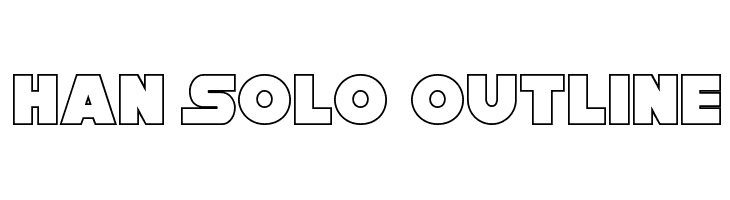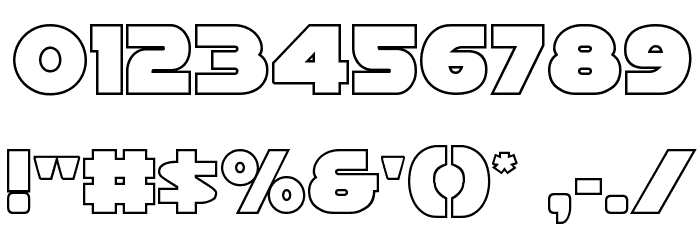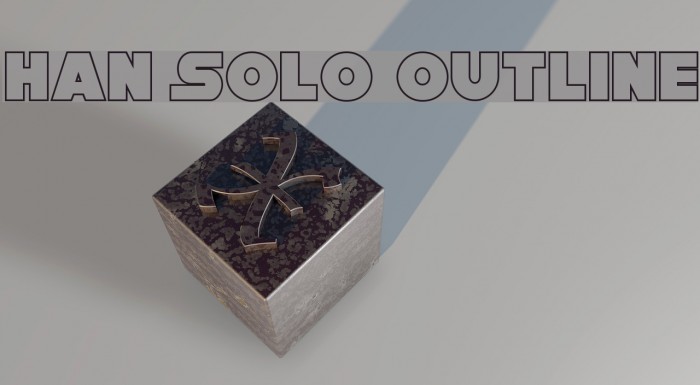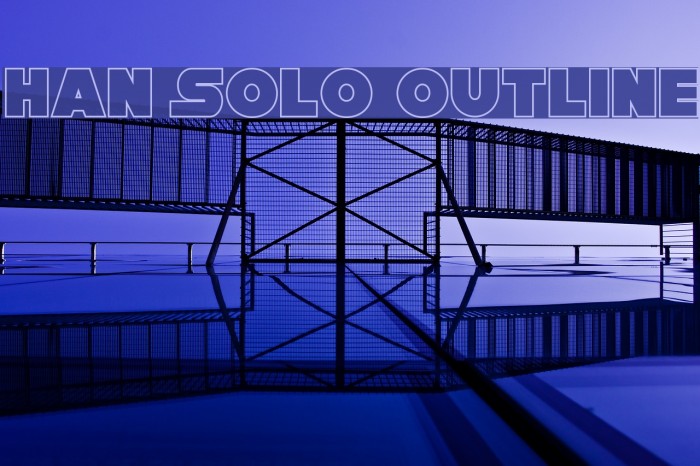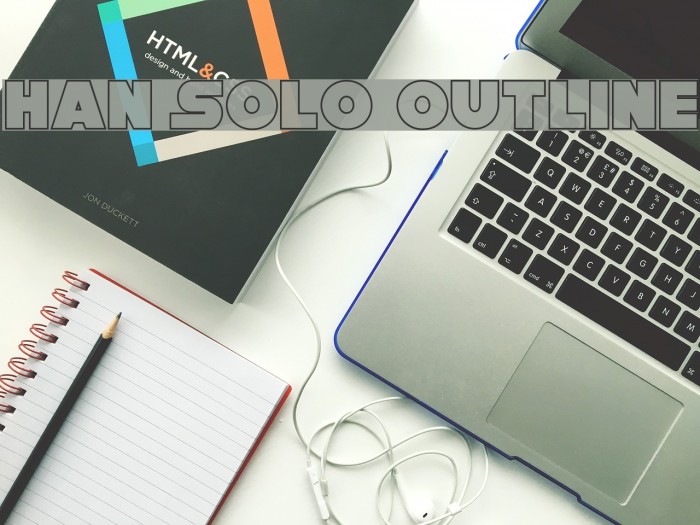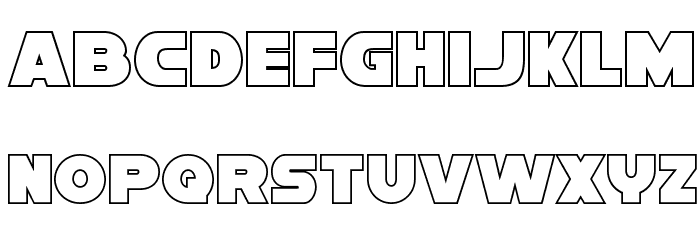
Han Solo Outline Font
This font features a bold, geometric design with an outline style that gives it a futuristic and dynamic appearance. The characters are constructed with clean, straight lines and sharp angles, creating a sense of precision and modernity. The uppercase letters are particularly striking, with a uniform height and width that contribute to a cohesive look. The numbers and special characters maintain the same bold outline style, ensuring consistency across all glyphs. This font's unique outline effect makes it stand out, offering a visually engaging experience.
A bold, geometric outline font with a futuristic and dynamic style.
• Proposed Projects: Ideal for sci-fi themed projects, posters, video game titles, and branding that requires a modern and bold statement.